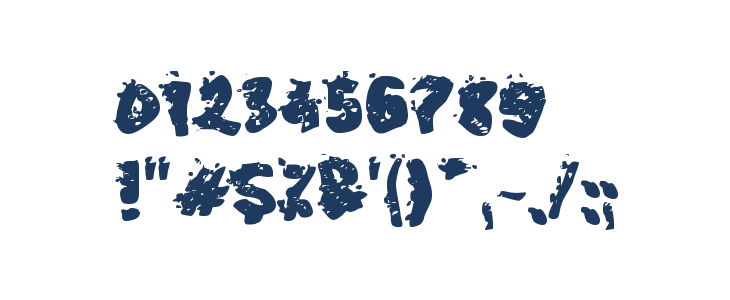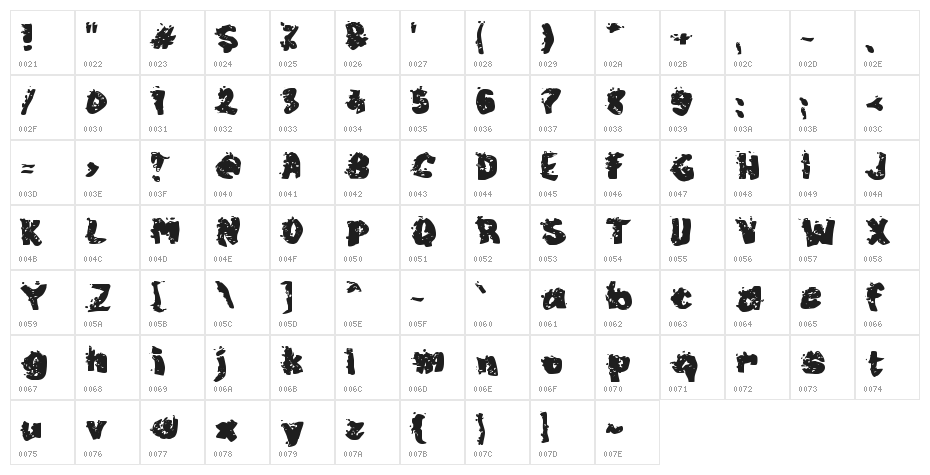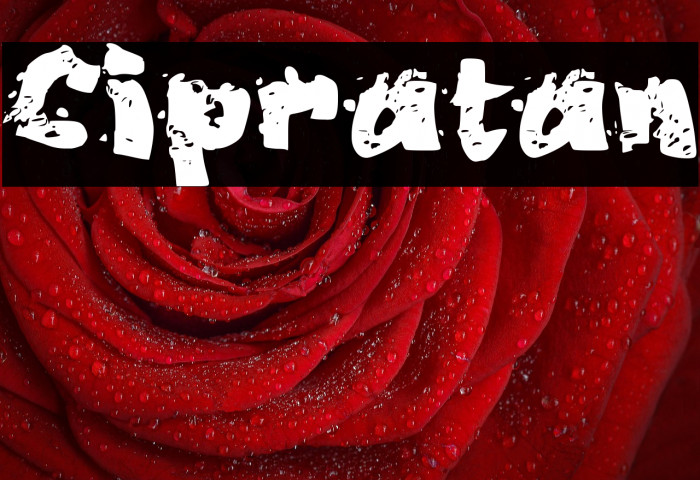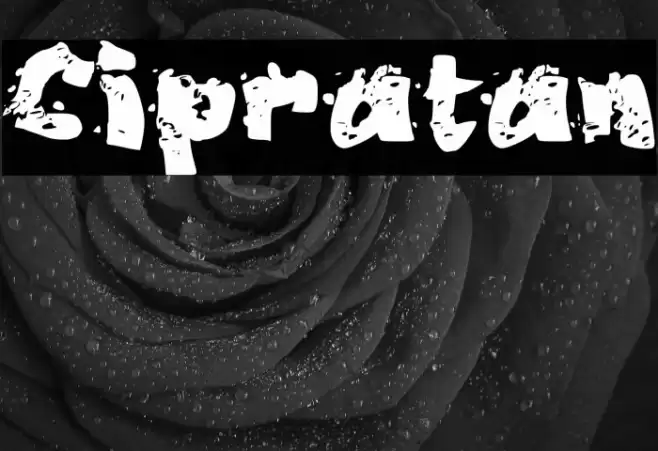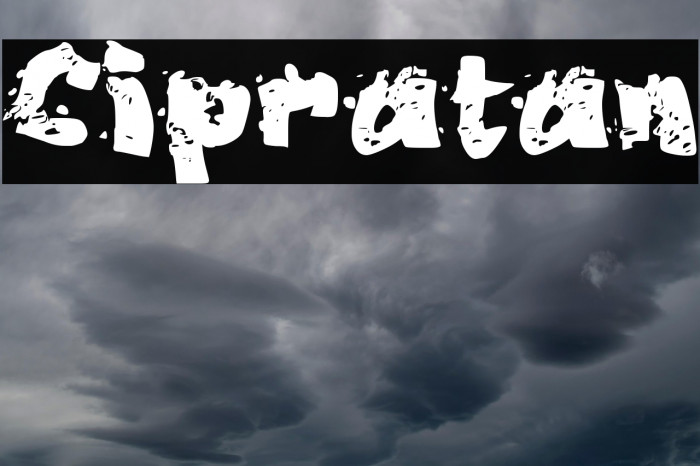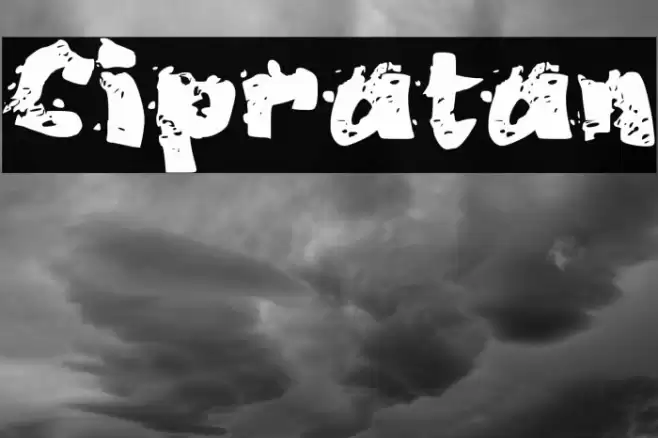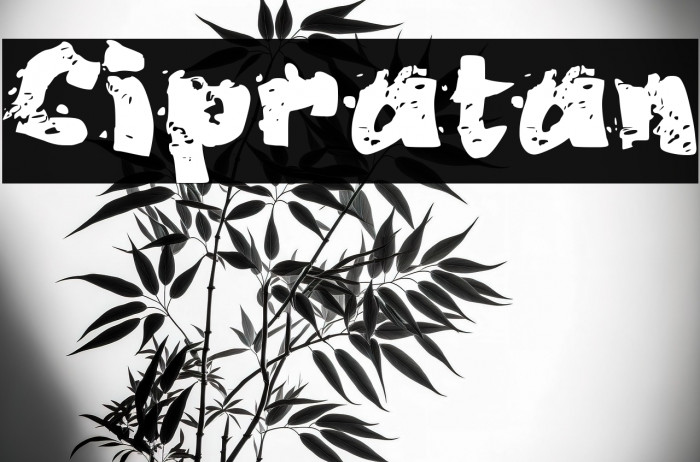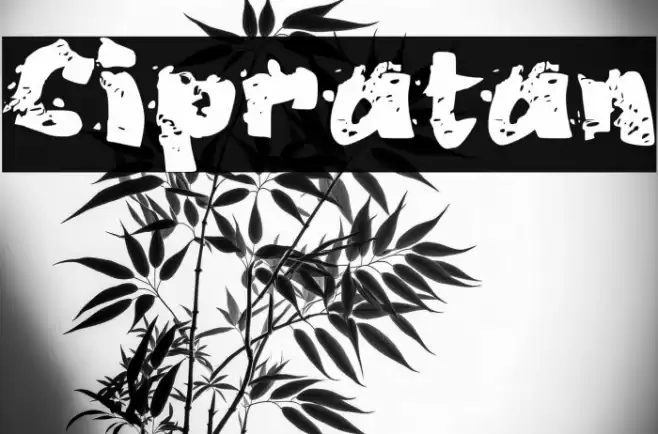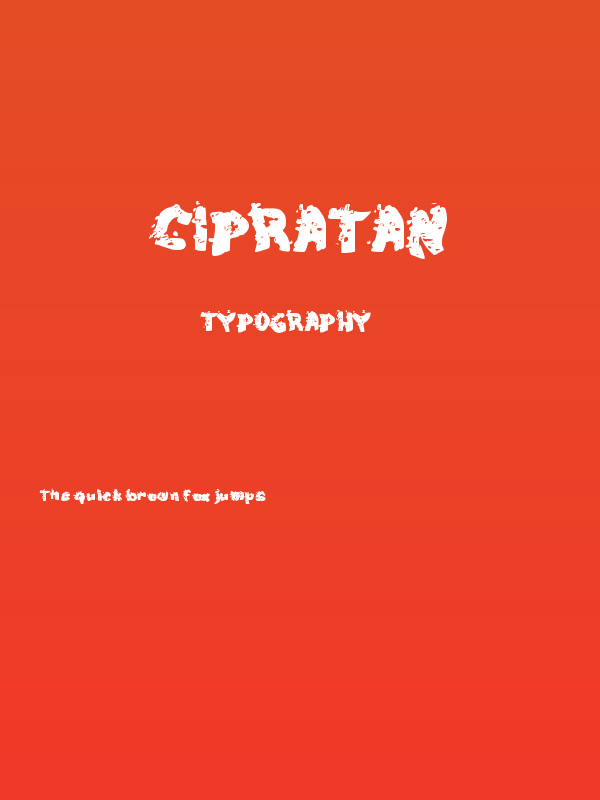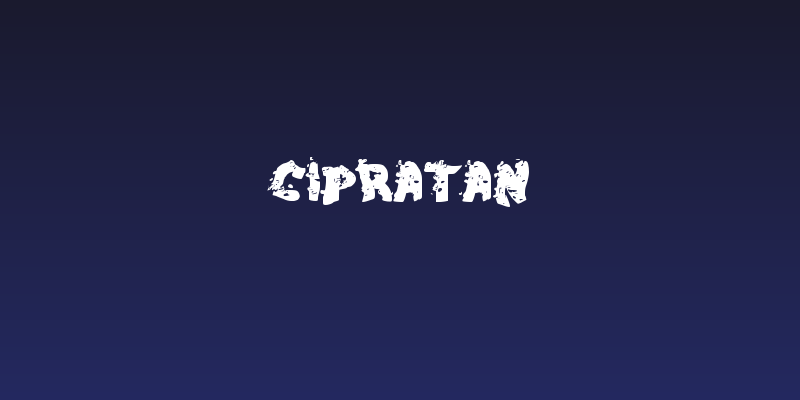
Cipratan Font
Cipratan Description
This font features a bold, distressed style with a splattered, grunge-like texture. Each character appears as if it has been splashed with ink or paint, creating a chaotic yet artistic appearance. The uppercase and lowercase letters maintain a consistent style, with thick strokes and irregular edges that give a sense of movement and energy. Numbers and special characters follow the same design, ensuring a cohesive look across all elements. This font is ideal for projects that require a bold statement or an edgy, urban feel.
| Overall Style | Grunge, Urban, Artistic |
| Proposed Projects | Perfect for album covers, street art designs, posters, and edgy branding projects. |